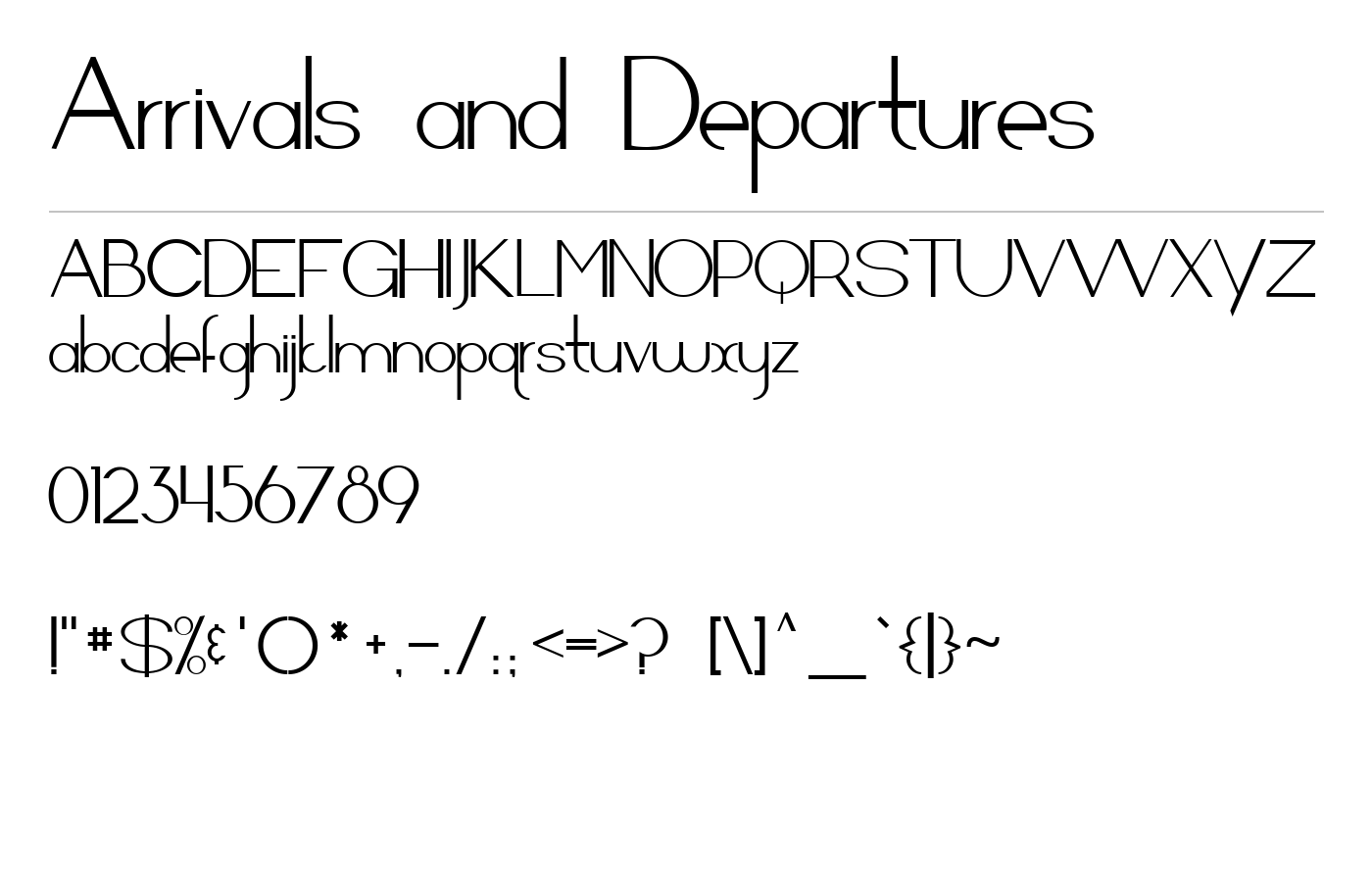
Arrivals and Departures is a sleek, elegant sans serif font with a tall x-height and very thin strokes, giving it a modern and airy feel. Its geometric shapes and refined letterforms lend a sophisticated, almost art-deco vibe, making it ideal for stylish branding, posters, and editorial use where a touch of luxury and clarity are desired. This font works best in display sizes, adding a delicate yet distinctive flair to fashion, lifestyle, and upscale design projects.
Arrivals and Departures Font
About Arrivals and Departures Font
| Designer | Matthew Tyndall |